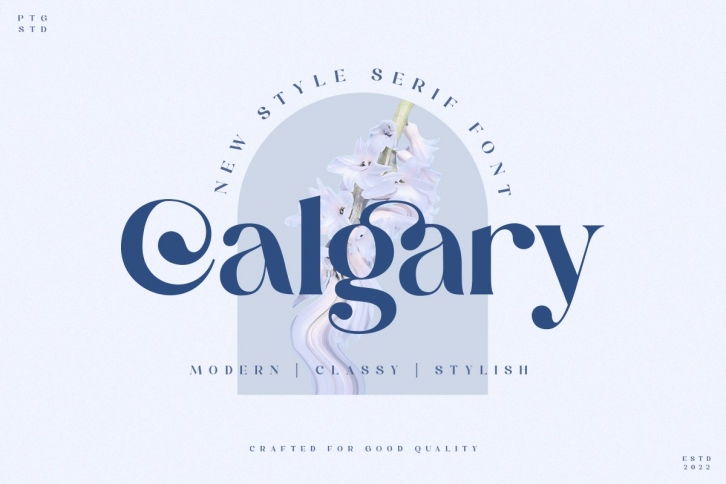
Calgary is a great font that was designed by pentagonistudio. Imagine the amount of combinations you can create using this font! The archive is 13.71 MB and it was released on August 22, 2022. Calgary looks beautiful on wedding invitations, greeting cards, logos, posters, labels, t-shirt designs, logos, business cards and is perfect for use in ink or watercolor works, fashion, magazines, packaging and food menus, children's books and more!